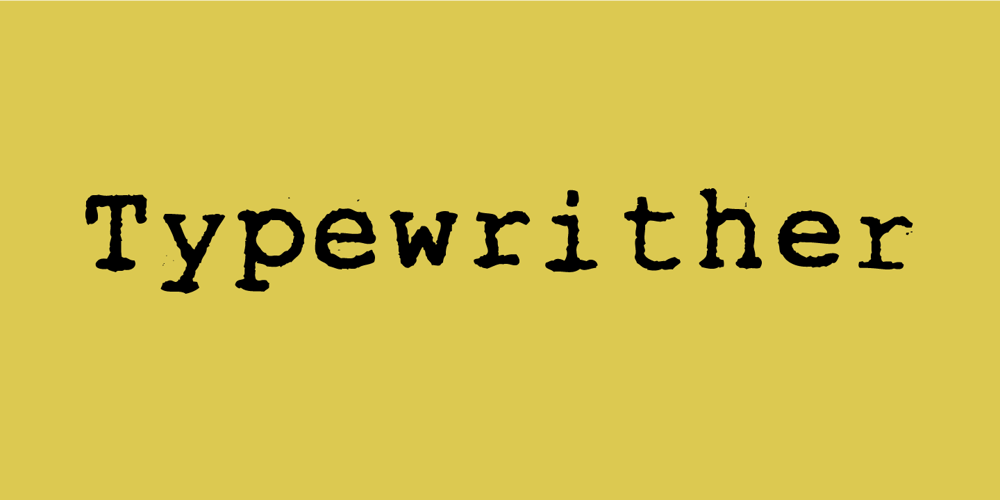
Typewrither Font Family was designed by Jakob Fischer and published by PizzaDude.dk. Typewrither contains 1 styles and family package options. Typewrither is not your every-day-typewriter-font. It comes with almost 200 different ligatures to help avoiding repeating letters – this includes ligatures for both lowercase, uppercase and numbers. You will need to use OpenType supporting applications to use the autoligatures.